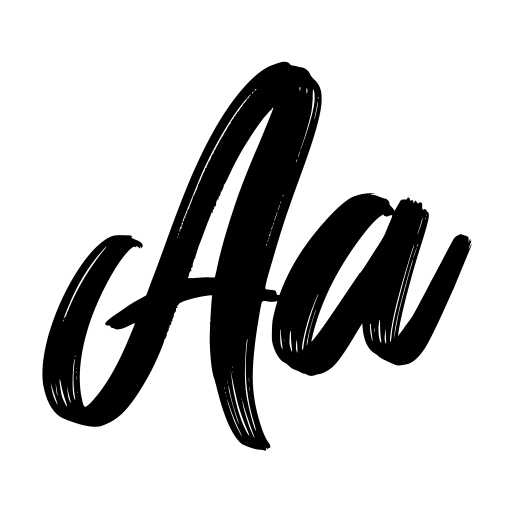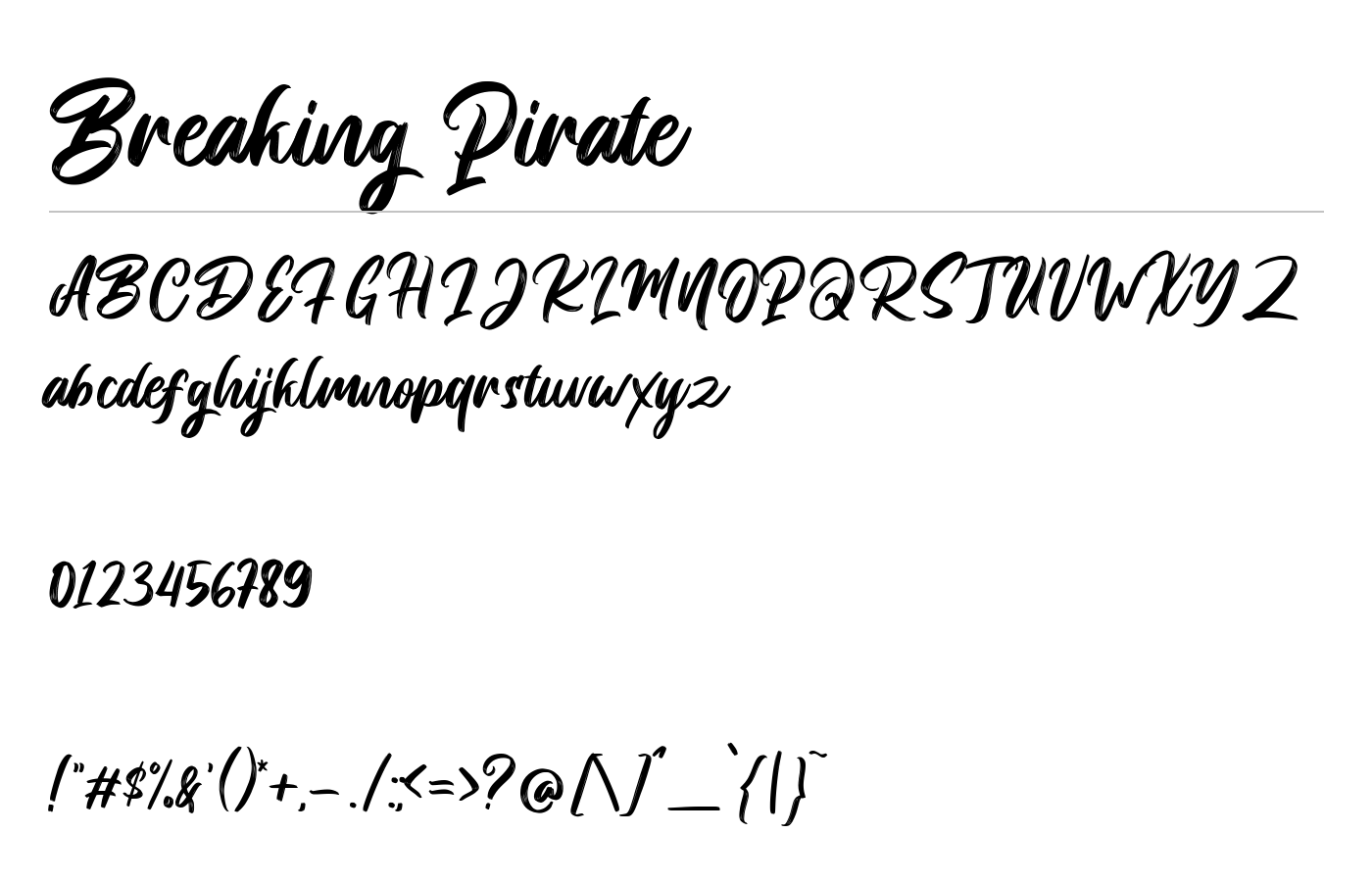
Breaking Pirate is a lively script font with a bold, brushstroke texture that gives it an energetic and informal feel. Its dynamic letterforms and slightly slanted style make it perfect for creative branding, posters, and headlines where a handcrafted, playful vibe is desired. This font works well for projects that want to convey excitement and personality with a casual, artistic flair.
Breaking Pirate Font
About Breaking Pirate Font